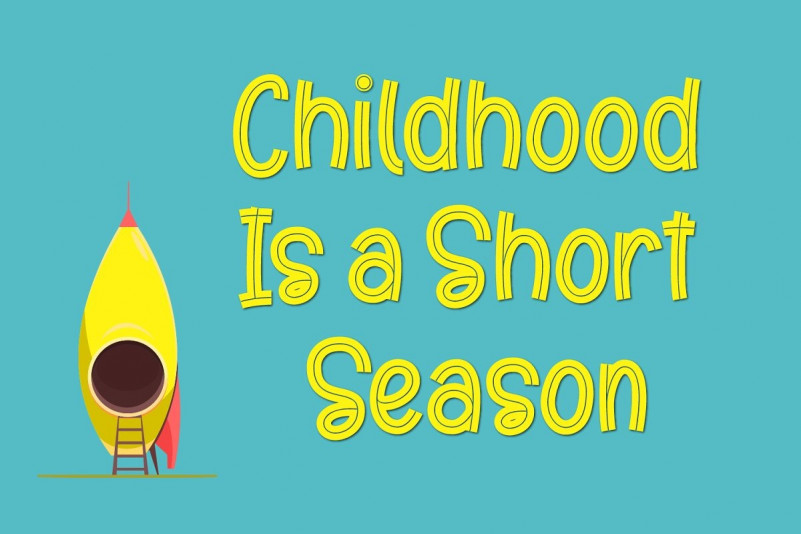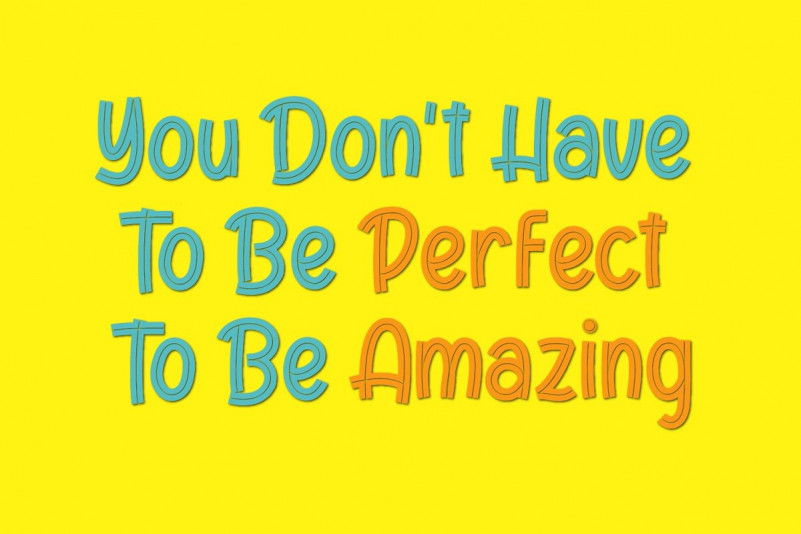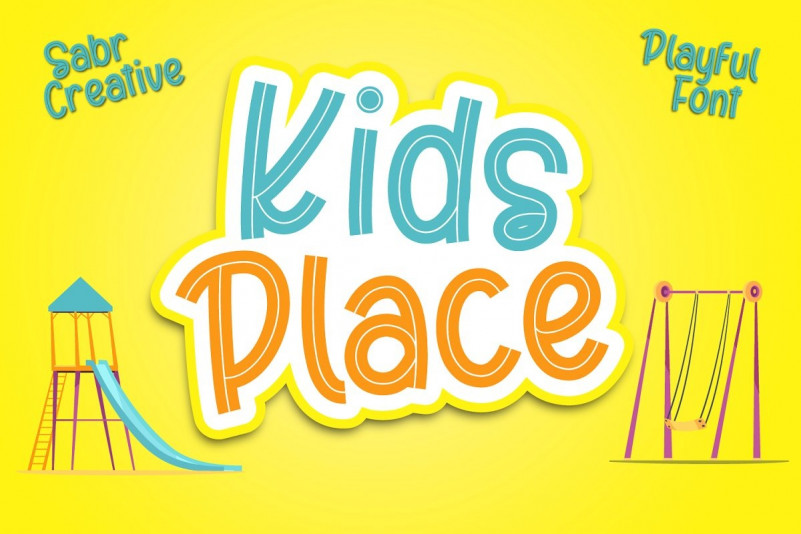
Kids Place Display Font
Kids Place Font is our new font with a playful, cute, clean style. Have three styles all of which can be combined for your project. Having a very neat style that is easy to read makes your project more quality.